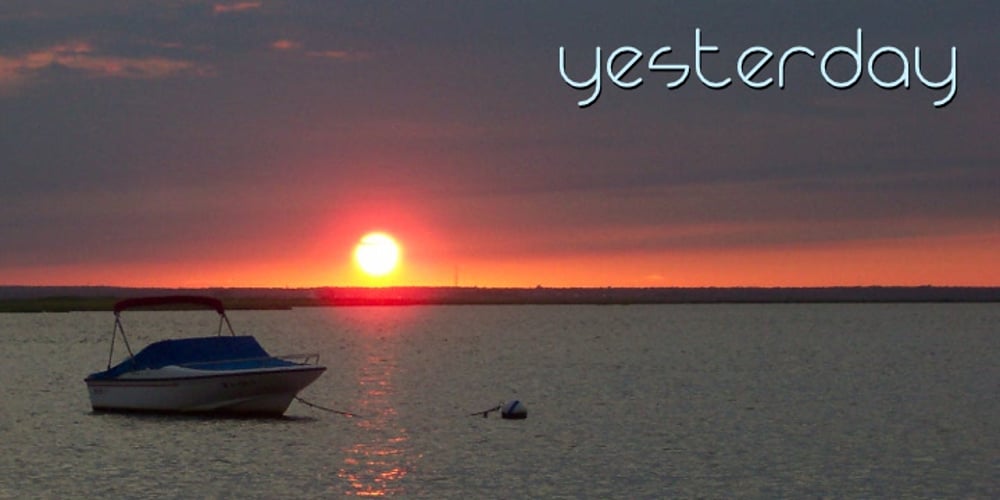
Yesterday Font Family was designed by Thomas Käding and published by Thomas Käding. Yesterday contains 6 styles and family package options. This is a geometric uncial font with a retro/art-deco feel. It comes in four weights, each in upright and oblique styles. It has Unicode coverage for Latin, Greek (modern diacritics only), and Cyrillic, plus the Euro and peace signs. This font began as part of a project to design a local currency. Sadly, the municipality canceled the endeavor before the design competition had started. I’m including one of the prototypes in the gallery section as an example of this font’s many uses.